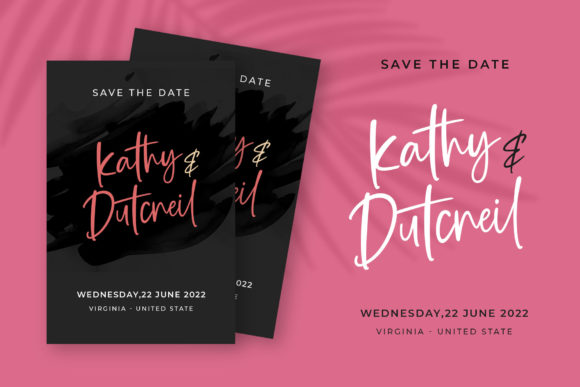
Andutione Font
Andutione Font is a free, unique, and cool font. This font is FREE to Download and suitable for designs such as t-shirts, sportswear, posters, logos, advertisements, clothing, and more.
Andutione Font is a free, unique, and cool font. This font is FREE to Download and suitable for designs such as t-shirts, sportswear, posters, logos, advertisements, clothing, and more. Whatever the topic, this font will be a great asset to your font collection, as it has the potential to enhance any creation.